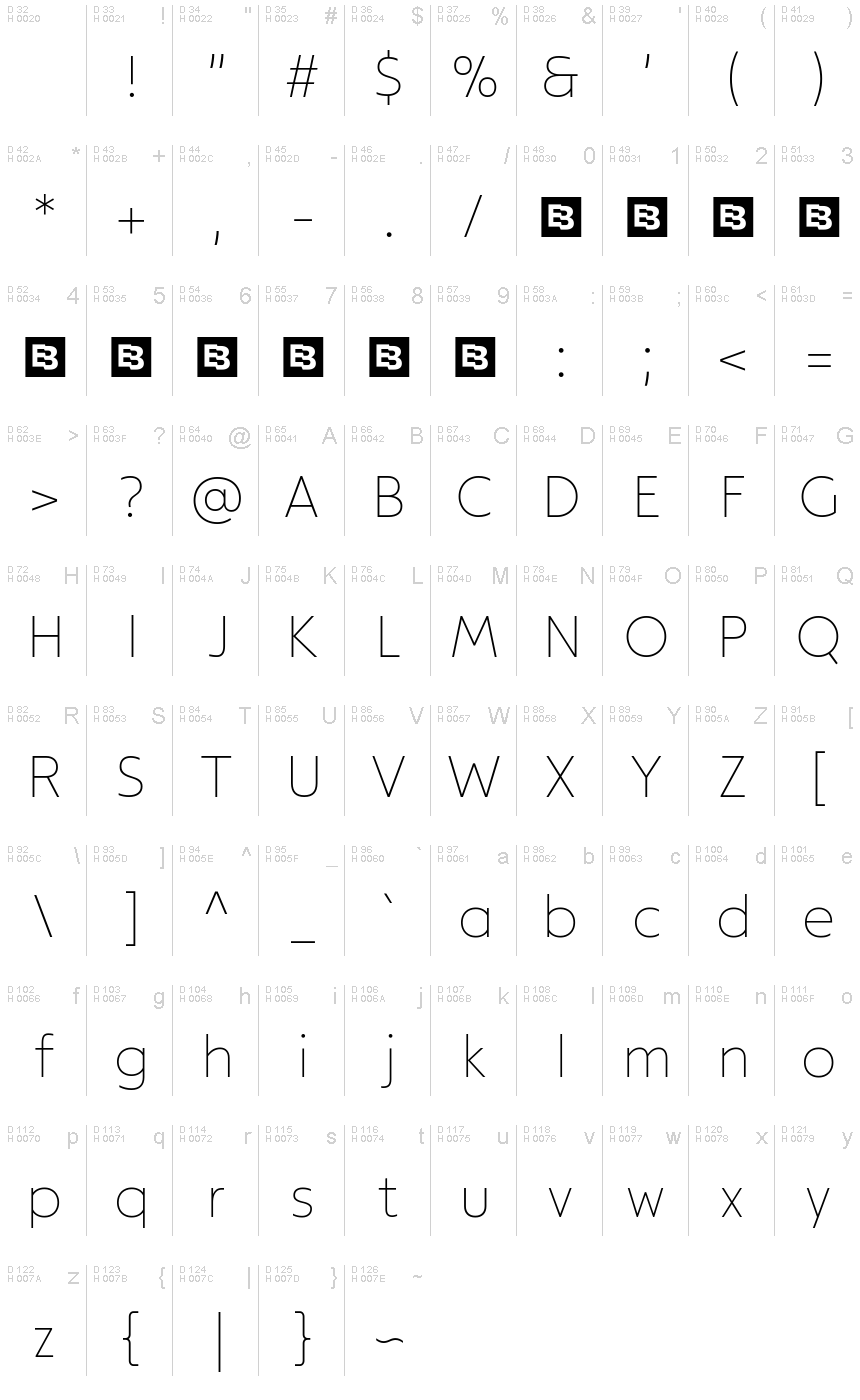
Modeska Trial Thin
Modeska Thin, a captivating sans-serif font crafted by Eko Bimantara, exudes a delicate and refined aesthetic. With its meticulously crafted letterforms, this light-weighted font radiates a sense of elegance and minimalism. The clean lines and graceful curves seamlessly blend, creating a harmonious and visually appealing typeface.
Modeska Thin's versatility makes it a compelling choice for a wide range of design applications. Its subtle yet impactful presence lends itself well to branding, editorial design, and contemporary typography. Whether used for headlines, body text, or elegant display, this font's refined character effortlessly elevates the visual impact of any project.